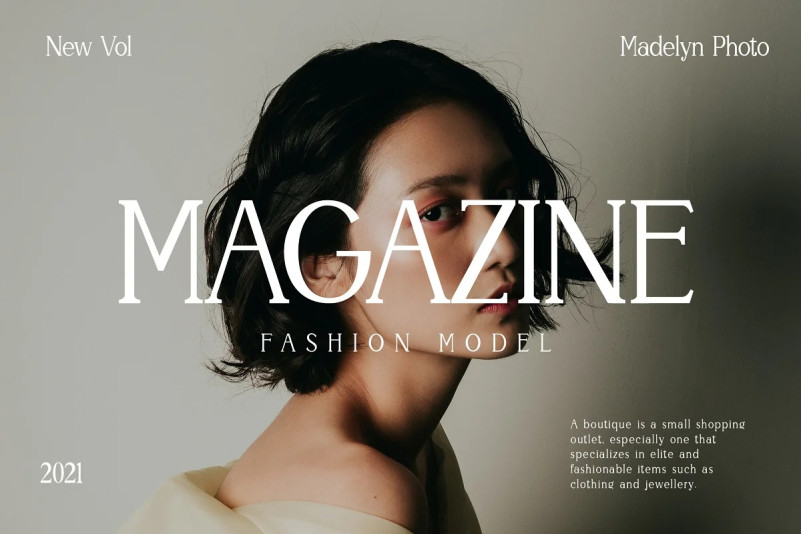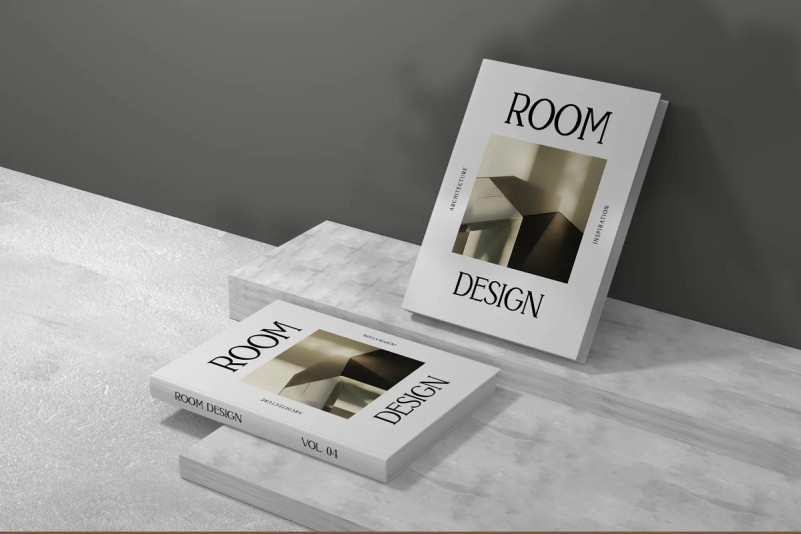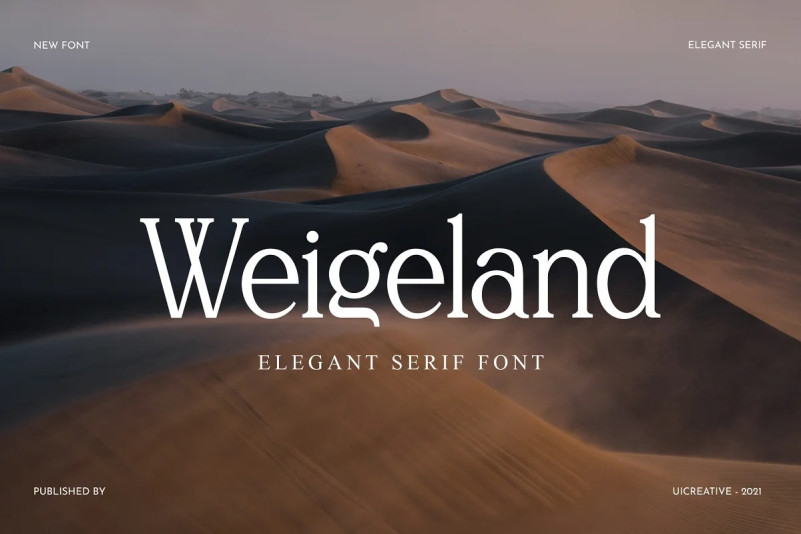
Weigeland Font
Weigeland Font – Modern Serif font that feels beautiful classy, elegant, and modern. This font is ideally suited for a wide variety of projects, such as signature, stationery, logo, wedding, typography quotes, magazine or book covers, website headers, clothing, branding, packaging design, and more. Also, fashion-related branding or editorial design displays both masculine and feminine qualities.